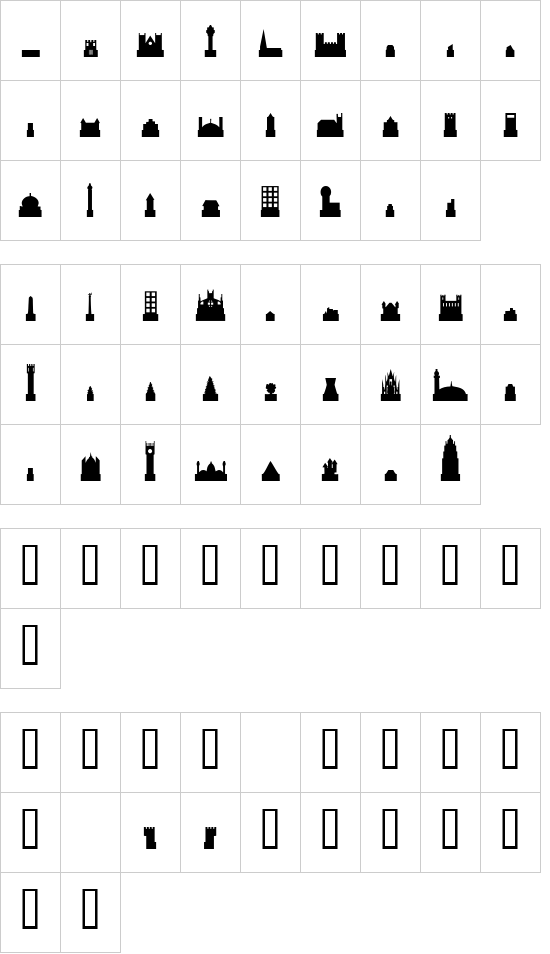
Cityscape is a dingbats face filled with urban-themed symbols, building silhouettes, and assorted city icons. Each key delivers a piece of skyline spot art rather than a letter, ready to drop architectural and metropolitan motifs into a layout.
It works for travel branding, architecture graphics, maps, and spot illustrations on posters where ready-made city icons help. The glyphs scale cleanly for small marks or large features. Cityscape is free to download as a TrueType file, and you can preview it with your own keystrokes to see which skyline or building symbol each key produces.